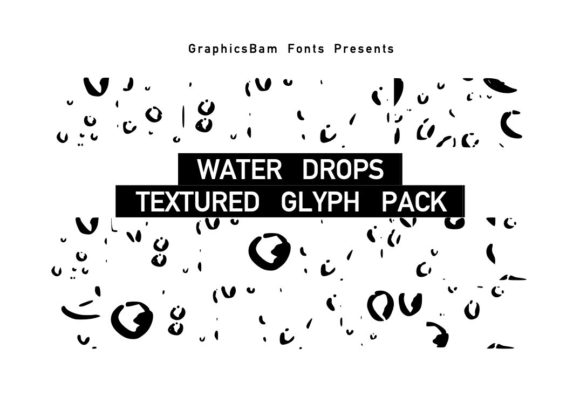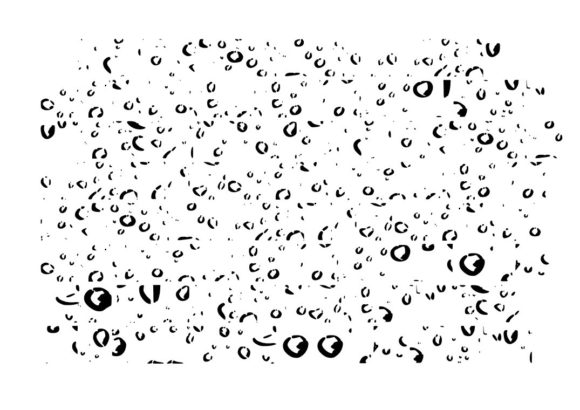
ABOUT WATER DROPLET GLYPHS FONT
“Water Droplet Glyphs” is an extensive collection of glyphs that showcases a diverse array of water droplet textures. This pack is specifically designed to add a water-inspired element to your design or craft projects, capturing the beauty and fluidity of this natural element.
With its realistic and detailed water droplet textures, “Water Droplet Glyphs” offers a range of options for incorporating the essence of water into your creative endeavors. Whether you’re working on graphic designs, illustrations, or any other visual medium, these glyphs can bring a refreshing and dynamic touch to your work.
The water droplet textures in “Water Droplet Glyphs” can evoke a sense of purity, tranquility, and vitality. They are perfect for creating water-themed designs, adding a splash of freshness to your artwork, or enhancing the visual appeal of your projects. Whether you’re designing for environmental campaigns, spa and wellness branding, or simply want to capture the beauty of water, this pack provides a valuable resource.
Unleash your creativity and explore the possibilities with “Water Droplet Glyphs.” Experiment with different sizes, shapes, and arrangements to achieve the desired look for your projects. Let the dynamic and flowing nature of water droplets add a captivating element to your designs, making them truly come alive.
Whether you’re working on digital artwork, posters, packaging, or any craft project that calls for a water-inspired touch, “Water Droplet Glyphs” is here to enhance your creative process and elevate your designs. Embrace the beauty of water and let it inspire your imagination as you create stunning and authentic compositions.